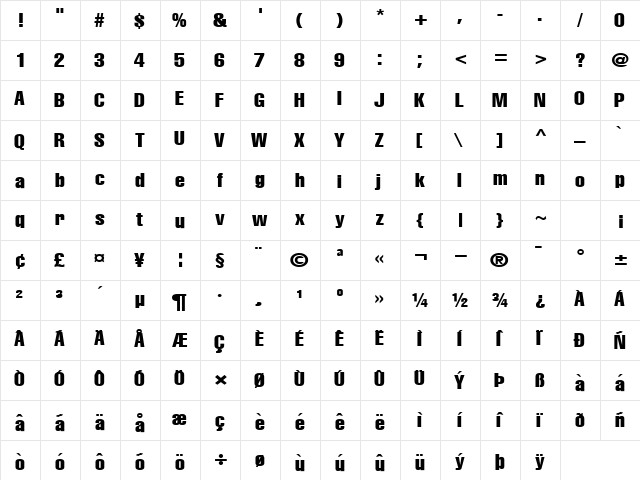
BabyMaker35 Regular
Design Context for BabyMaker35 Typeface
BabyMaker35 offers clean, dependable letterforms without strong stylistic allegiance, making it a practical choice for designers who need flexibility.
Pro Tip: Use BabyMaker35 in both headline and body roles to test its range before committing to a single application.